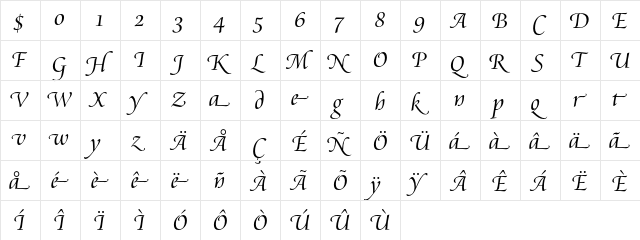
Cataneo Light Swash
Design Context for Cataneo Typeface
Cataneo brings a calligraphic fluidity to the page — its connecting strokes and expressive curves give it an unmistakably human quality. The delicate stroke weight brings airiness and refinement to layouts.
Font Pairing: Combine Cataneo with a simple geometric sans for maximum contrast — the tension between flowing curves and clean structure is a classic typographic pairing.
Pro Tip: Use Cataneo for short runs of text — names, titles, or taglines. Extended body copy in script faces tires the eye quickly.